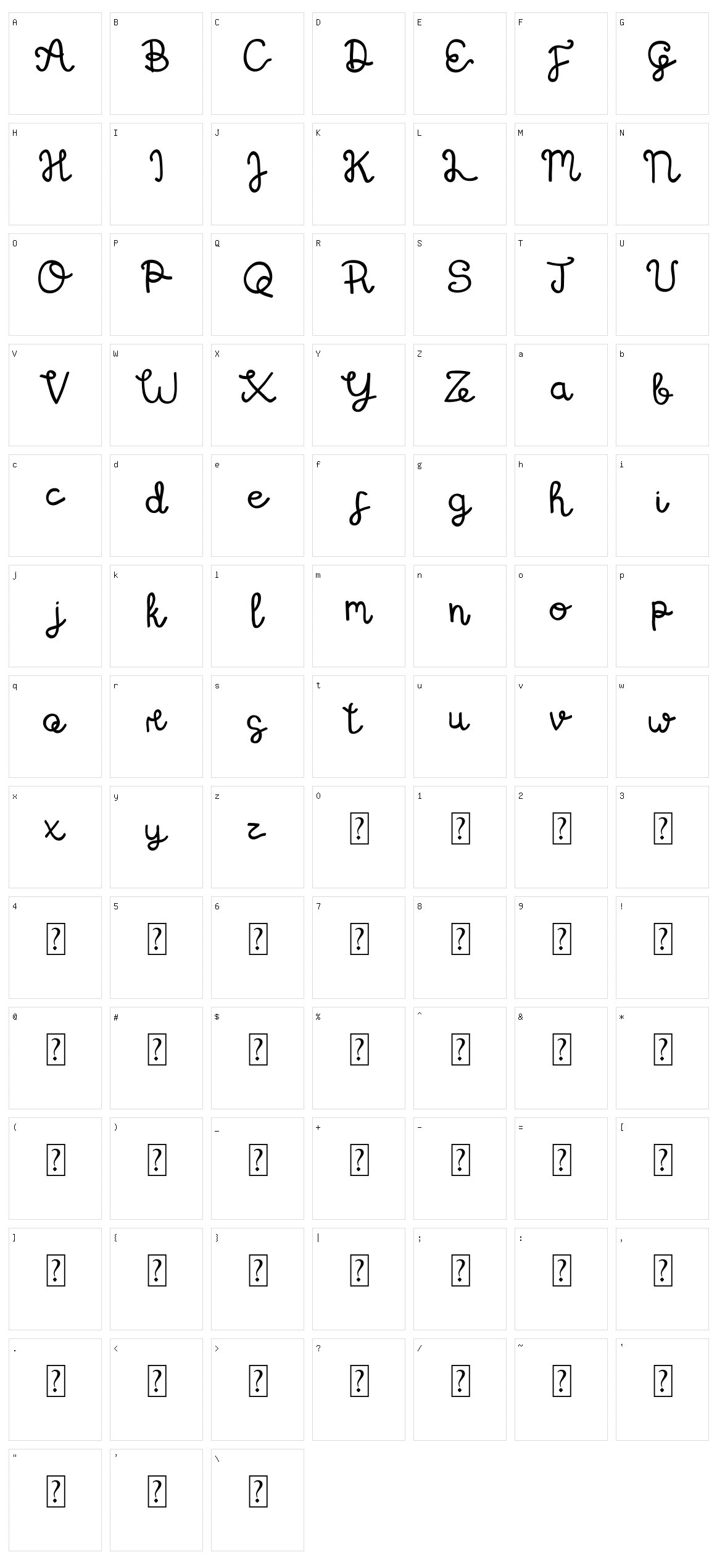
"The Roseville" is a handwritten script font.
Bold line with an extras alternate love in lowercase.
Inspired by the beautiful blossom of roses.
Suitable for any design promotion.